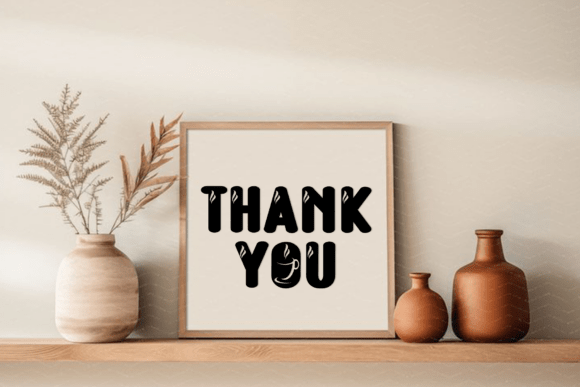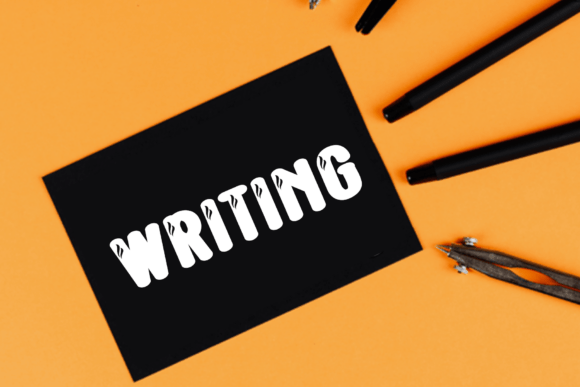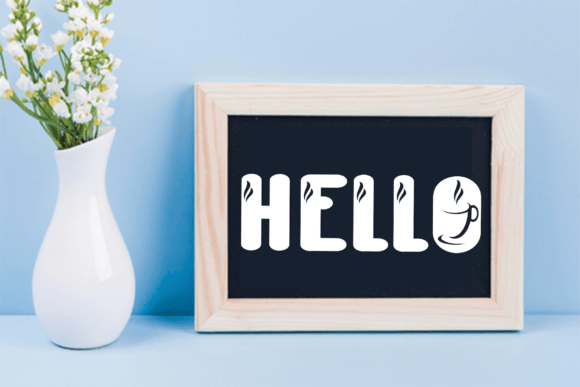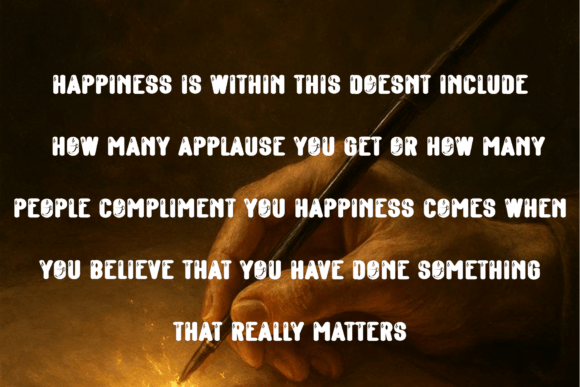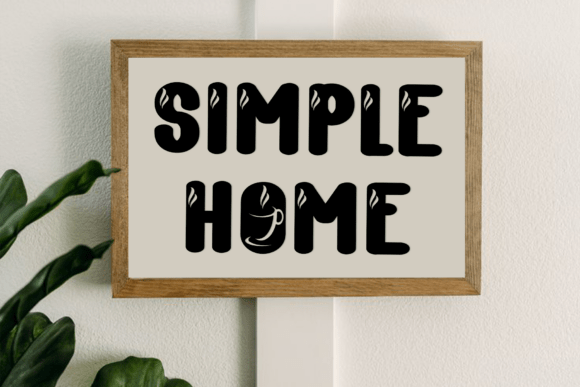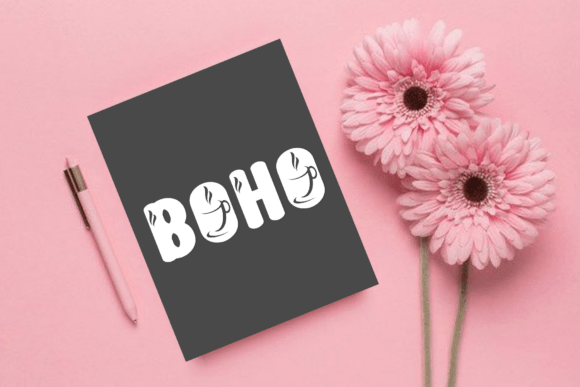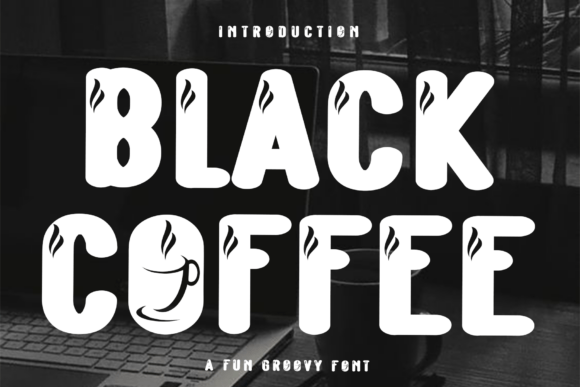
The Magic of Black Coffee Font: A Festive Holiday Companion
It’s the most wonderful time of the year – and as designers, crafters, and creative hobbyists, we’re on the hunt for that perfect font to make our holiday projects shine. I still remember the year I spent hours scouring font libraries for the ideal typeface to adorn my client’s Christmas cards. The brief was simple: festive, merry, and with a touch of whimsy. That’s when I stumbled upon the enchanting Black Coffee Font. In this article, I’ll share my journey with this beautiful font, its features, and how to make the most of it in your designs.
A Personal Design Moment: Finding the Perfect Holiday Font
I recall working late one evening, surrounded by design briefs and a cup of cold coffee (ironic, I know!), trying to find a font that embodied the holiday spirit. My client wanted something that would make their Christmas cards and gift tags stand out. As I scrolled through font after font, Black Coffee caught my eye. Its decorative elements and whimsical flair instantly transported me to a winter wonderland. I knew right then and there that this was the one.
- ✨ Festive and Merry: Black Coffee captures the essence of the holiday season with its unique blend of decorative elements and classic typography.
- ✅ Easy Access to Glyphs: Being PUA encoded, accessing the amazing glyphs and ligatures is a breeze, making your design process smoother.
- ✅ Versatile: Perfect for a variety of projects including greeting cards, gift tags, and holiday-themed crafts.
- ⚠️ Glyph Overload: With so many glyphs and ligatures available, it can be overwhelming to decide which ones to use. Take your time to explore them all!
- 🤔 Compatibility Issues: Some older software might not fully support OpenType features, which could limit your design capabilities.
Black Coffee Font was designed with the holiday season in mind. Inspired by vintage Christmas cards and the whimsy of snowflakes, the designer aimed to create a typeface that felt both nostalgic and festive. The result is a font that brings a touch of magic to any project.
| What makes Black Coffee Font unique? | Its blend of decorative elements and whimsical flair captures the holiday spirit like no other. |
| Is Black Coffee Font easy to read? | Despite its decorative nature, Black Coffee maintains a good level of readability, making it perfect for titles and short texts. |
Black Coffee Font is more than just a typeface – it’s a holiday companion that brings joy and whimsy to your designs. Whether you’re crafting Christmas cards, gift tags, or festive banners, this font is sure to add a magical touch. So why wait? Let your typography shine with the magic of Black Coffee Font!